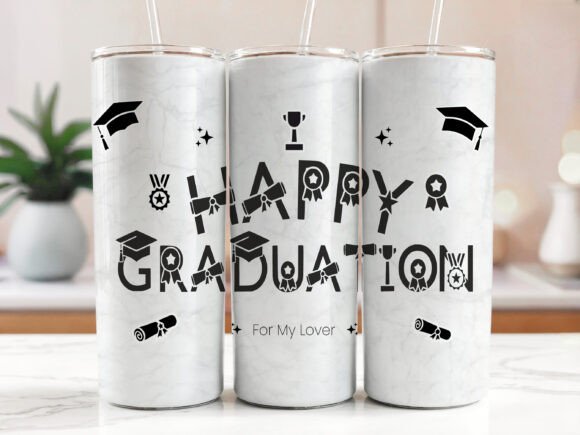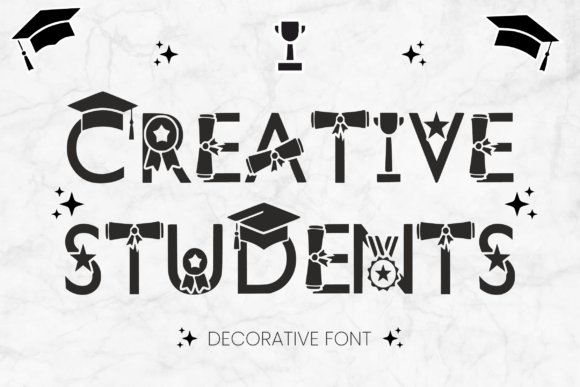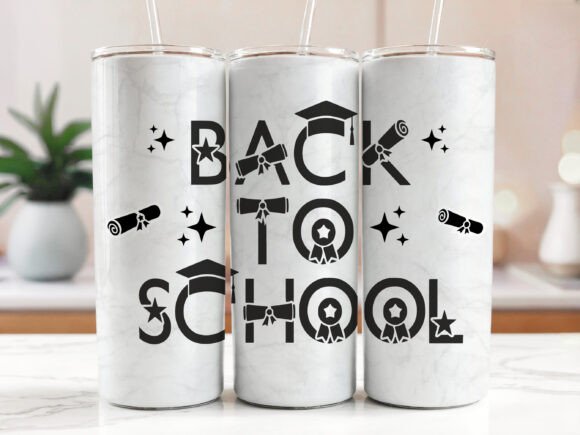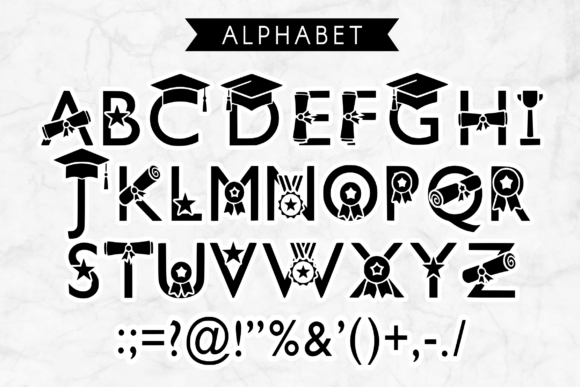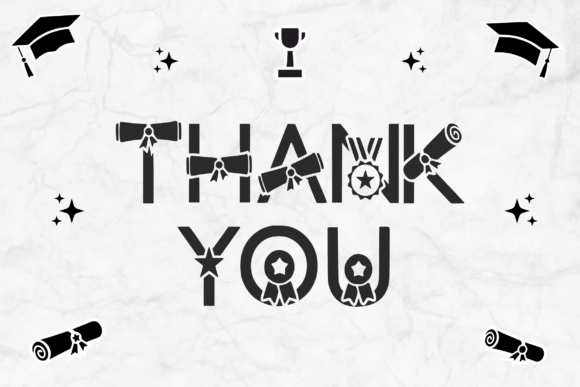
Unveiling “Graduation” – The Ultimate Decorative Typeface for Grad Festivities
Are you a designer or crafter looking for a unique and exquisite font to make your graduation-themed designs stand out? Look no further than “Graduation”, a stunning decorative typeface that embodies the grandeur of grad festivities. This beautifully crafted font is designed to add a touch of elegance and sophistication to your creations, making it perfect for a wide range of applications.
The Inspiration Behind “Graduation”
The “Graduation” font is inspired by the iconic symbols of graduation, carefully woven into each letter to create a visual symphony that is both striking and meaningful. The font’s design is a perfect blend of classic and modern elements, making it versatile enough to be used in various design projects. Whether you’re creating vibrant greeting cards, customized sublimation cups, fashionable t-shirts, or enticing invitations, “Graduation” is the perfect choice.
Key Features of the “Graduation” Font
- Unique and Decorative: The “Graduation” font is a one-of-a-kind decorative typeface that adds a touch of elegance to any design.
- Iconic Symbols: Each letter is artfully adorned with iconic symbols of graduation, making it a perfect fit for grad-themed designs.
- Versatile: The font can be used in a wide range of applications, from greeting cards and invitations to customized products and apparel.
Design Ideas with “Graduation”
The “Graduation” font is a versatile design element that can be used in a variety of creative projects. Here are some design ideas to get you started:
- Vibrant Greeting Cards: Create stunning graduation greeting cards that feature the “Graduation” font as the centerpiece.
- Customized Sublimation Cups: Add a personal touch to sublimation cups with the “Graduation” font, making them perfect for grad gifts or party favors.
- Fashionable T-Shirts: Design eye-catching t-shirts that feature the “Graduation” font, ideal for grads, graduates, or anyone who loves to celebrate this special occasion.
- Enticing Invitations: Create beautiful graduation invitations that showcase the “Graduation” font, setting the tone for a memorable celebration.
In conclusion, the “Graduation” font is a unique and exquisite decorative typeface that is perfect for designers and crafters looking to create stunning grad-themed designs. With its iconic symbols, versatility, and ease of use, this font is sure to become a favorite in your design arsenal. So why wait? Immerse yourself in the charm of the “Graduation” font and let it enhance every creation you need it for.